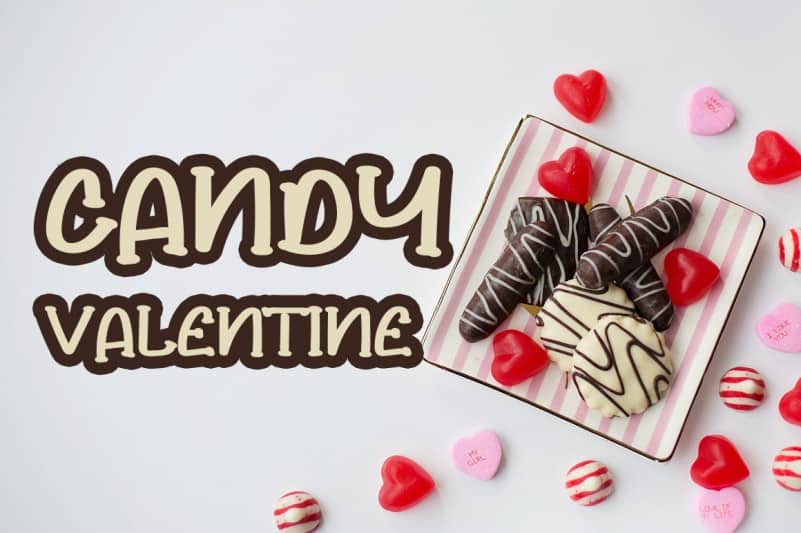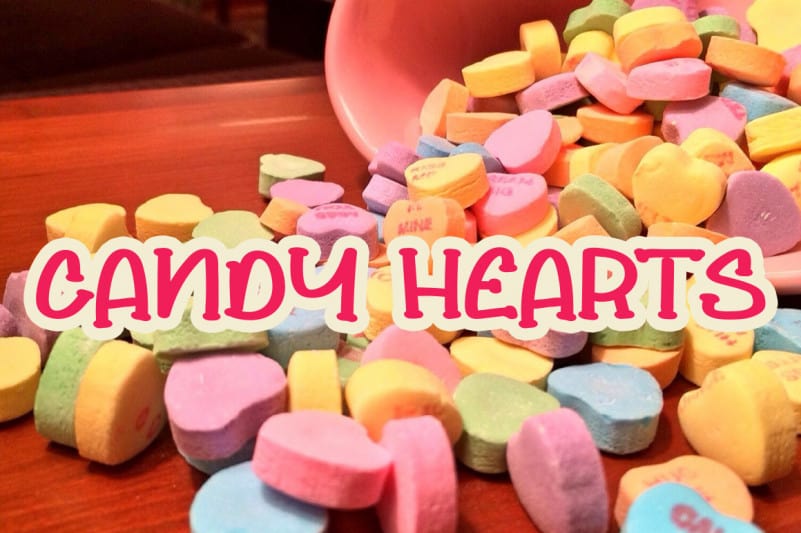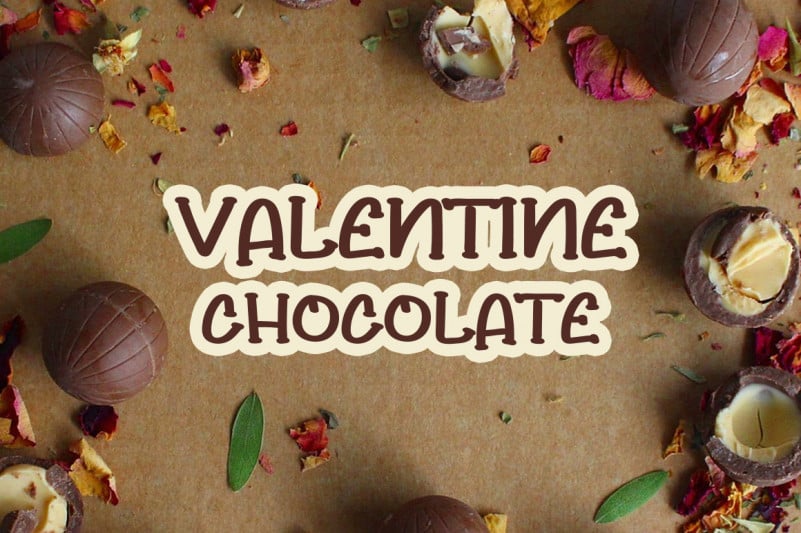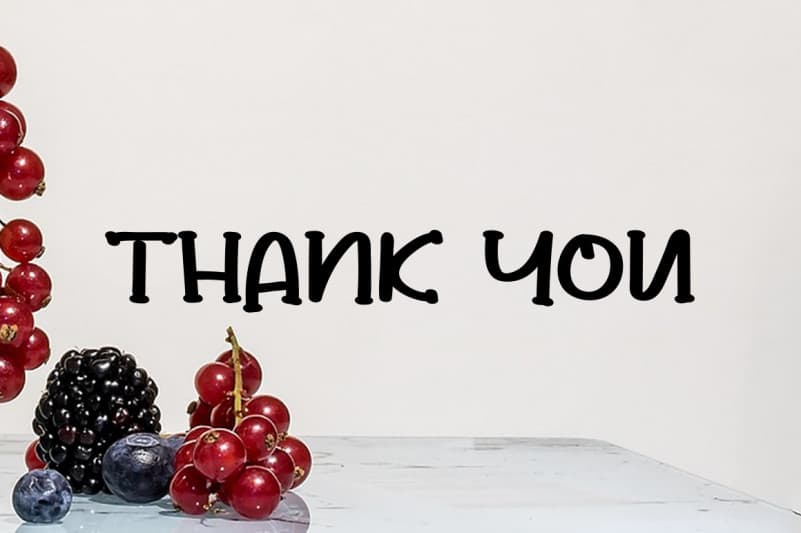
Valentine Is Coming Display Font
Valentine Is Coming Display Font is an incredibly cool and trendy display font. Whether you use it for cartoon related designs, children games or just any creation that requires a lovely touch, this font will be an amazing choice.
Valentine Is Coming Display Font is a very talented product for you to use,
Latest letters that can be used for various products, invitations, wall hangings, weddings, and more.